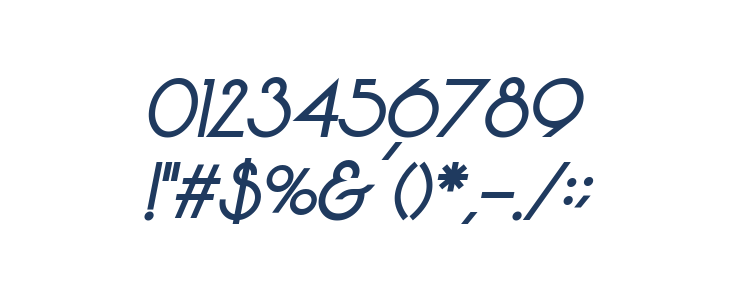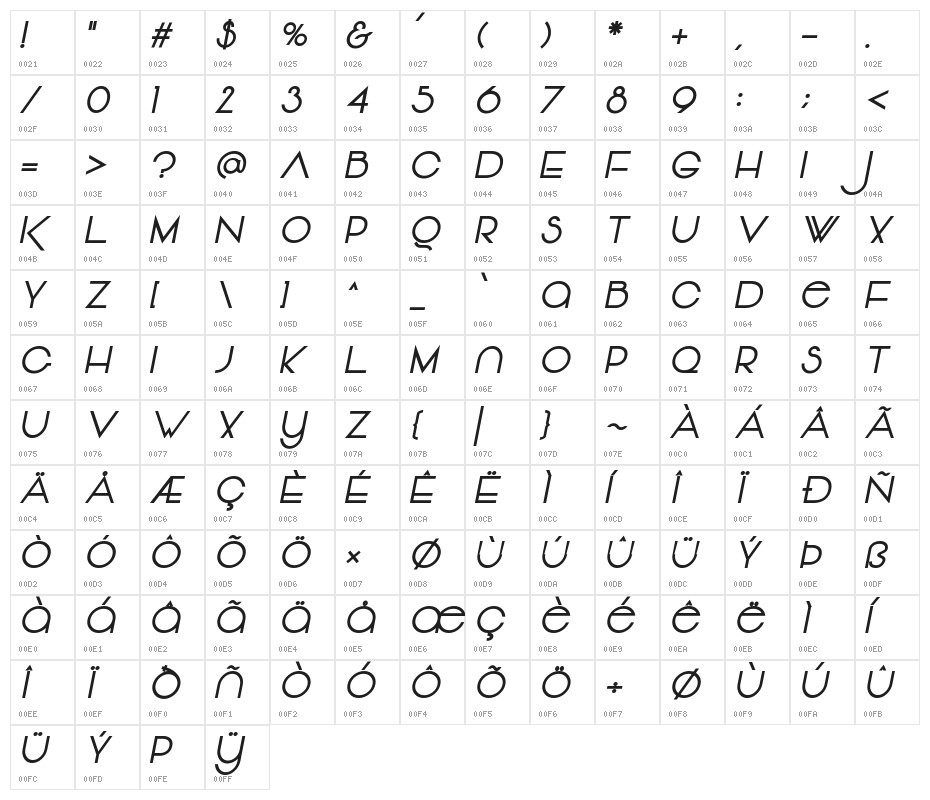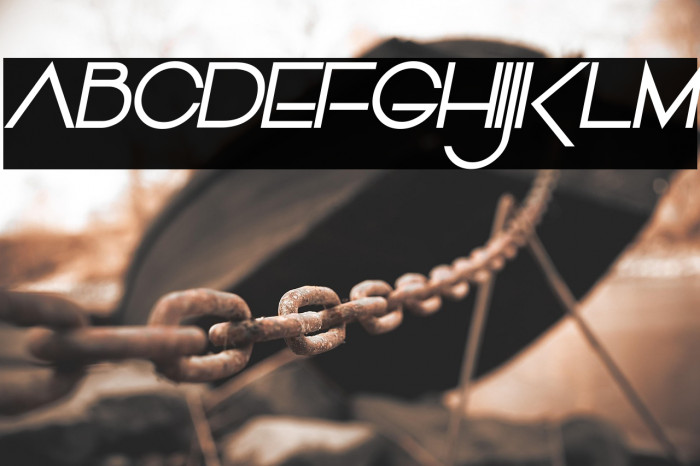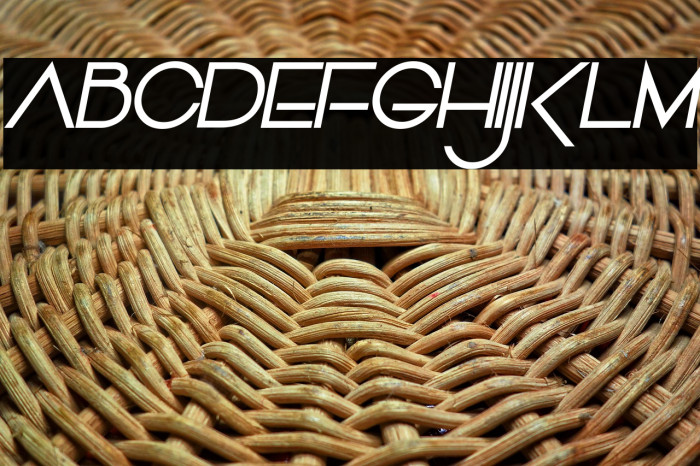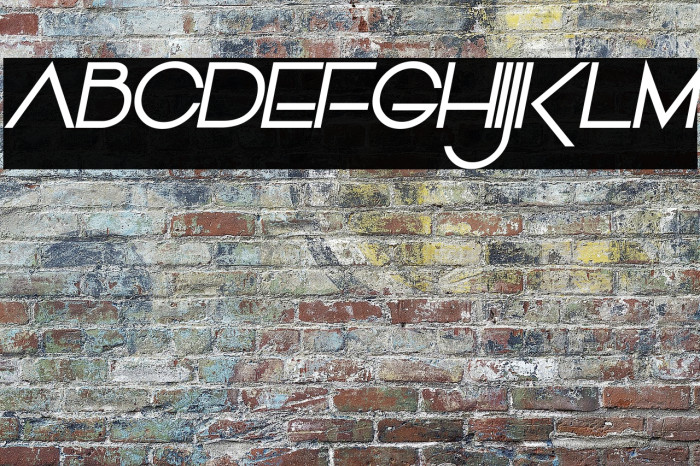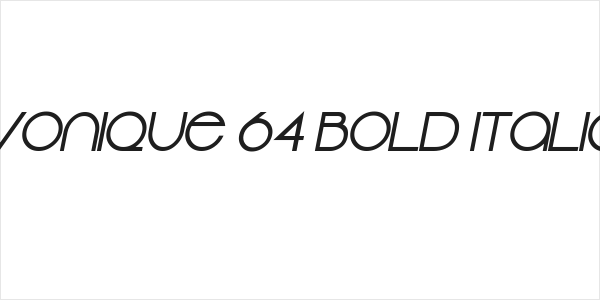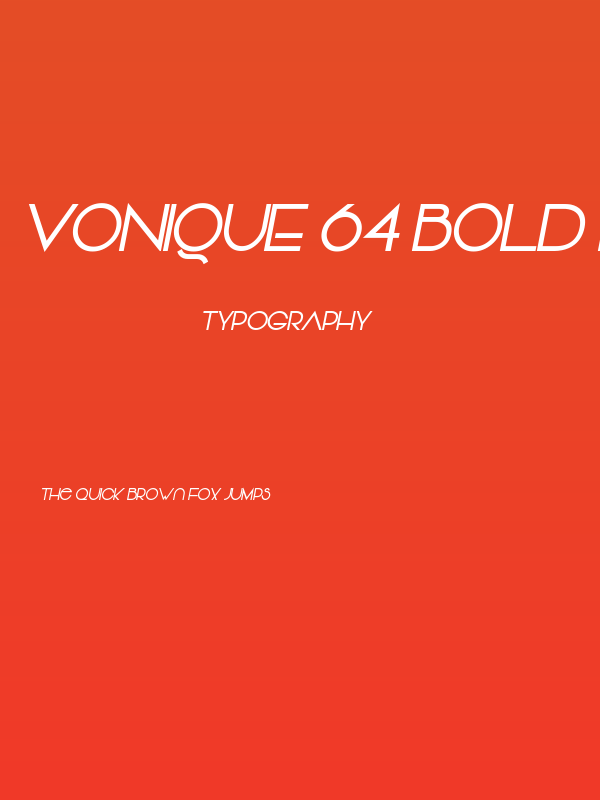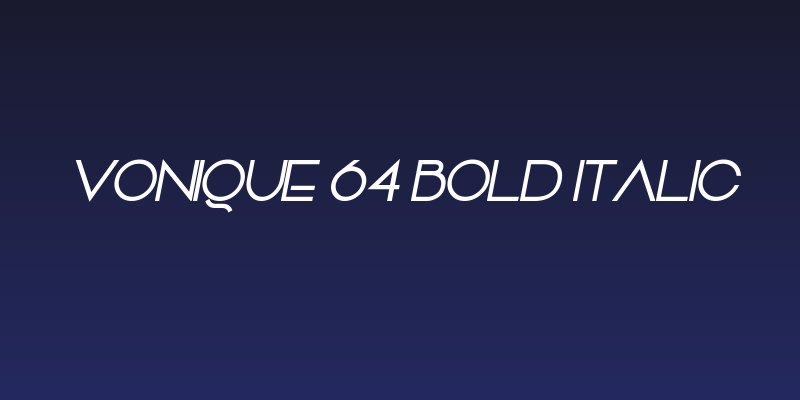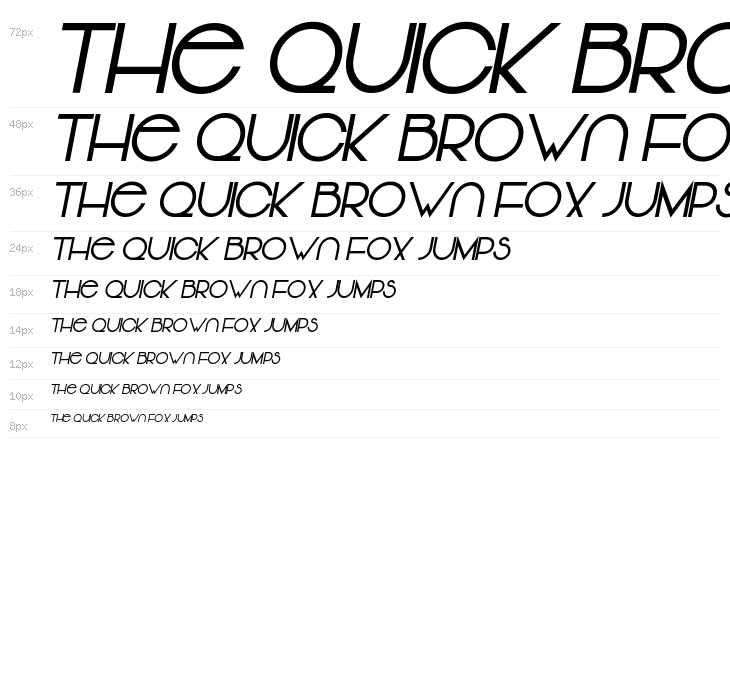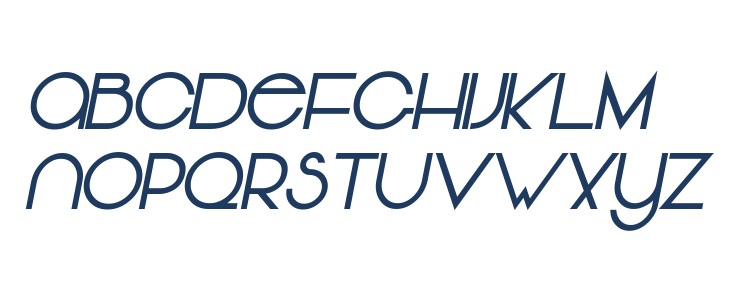
Vonique 64 Bold Italic Font
Vonique 64 Bold Italic Description
This font features a sleek, modern design with a distinct italic slant, giving it a dynamic and forward-moving appearance. The characters are bold, with a consistent stroke width that provides a strong visual impact. The uppercase and lowercase letters maintain a cohesive style, with angular cuts and sharp edges that add a futuristic touch. The numerals are equally bold and maintain the same angular design, ensuring readability and consistency across all characters. Special characters are designed to match the overall aesthetic, making this font suitable for a variety of applications.